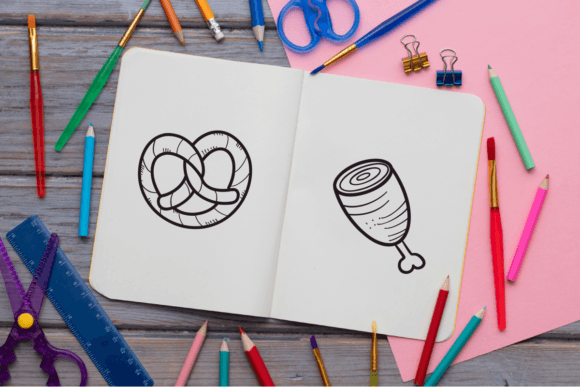
Oktoberfest Font
Oktoberfest Font is a fun and festive dingbat font featuring symbols and icons related to beer festivals. This font includes pictures like beer mugs, pretzels, sausages, and other items you’d find at a traditional Oktoberfest celebration. It’s perfect for adding a playful touch to party invitations, decorations, and other Oktoberfest-themed projects.